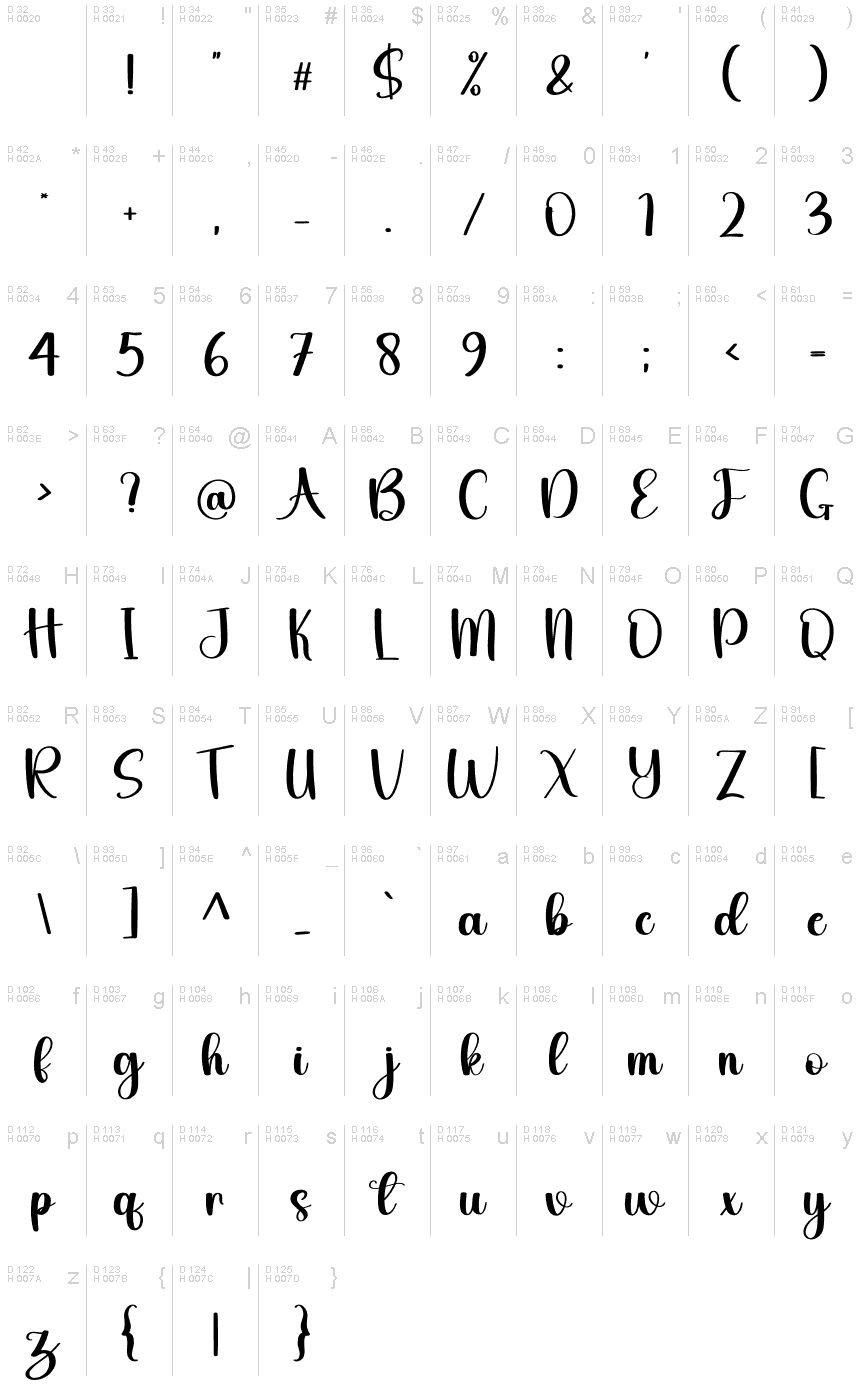
Vorschau der Schriftart Milk
Milk, a mesmerizing calligraphy font created by Harlek Studio, adds an elegant touch to any project.
Its graceful curves and intricate details make it ideal for wedding invitations, greeting cards, and personal branding. With its delicate strokes and flowing lines, this script font brings a sense of sophistication to fashion magazines, beauty blogs, and luxury products. Milk's versatility shines in logo designs for boutique shops or artisanal products.
Whether you're creating a romantic book cover or designing an upscale restaurant menu, Milk is the perfect choice for adding a touch of refined beauty.